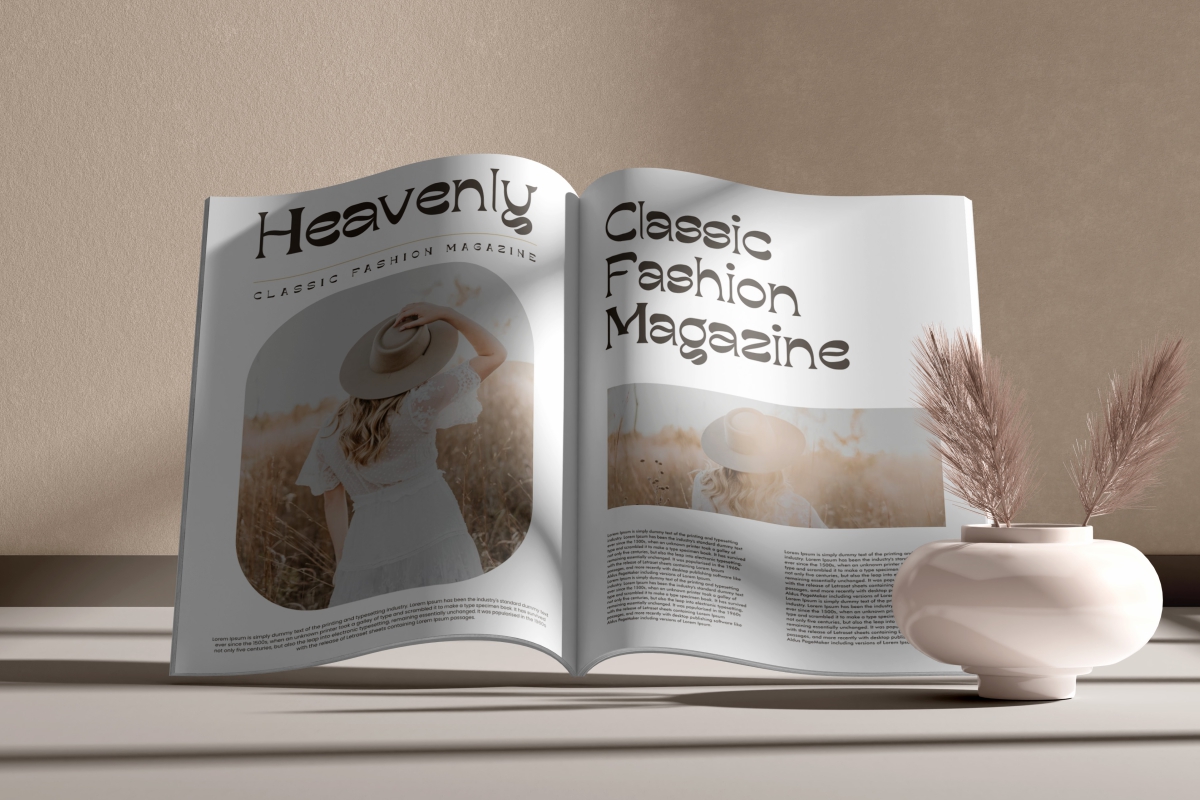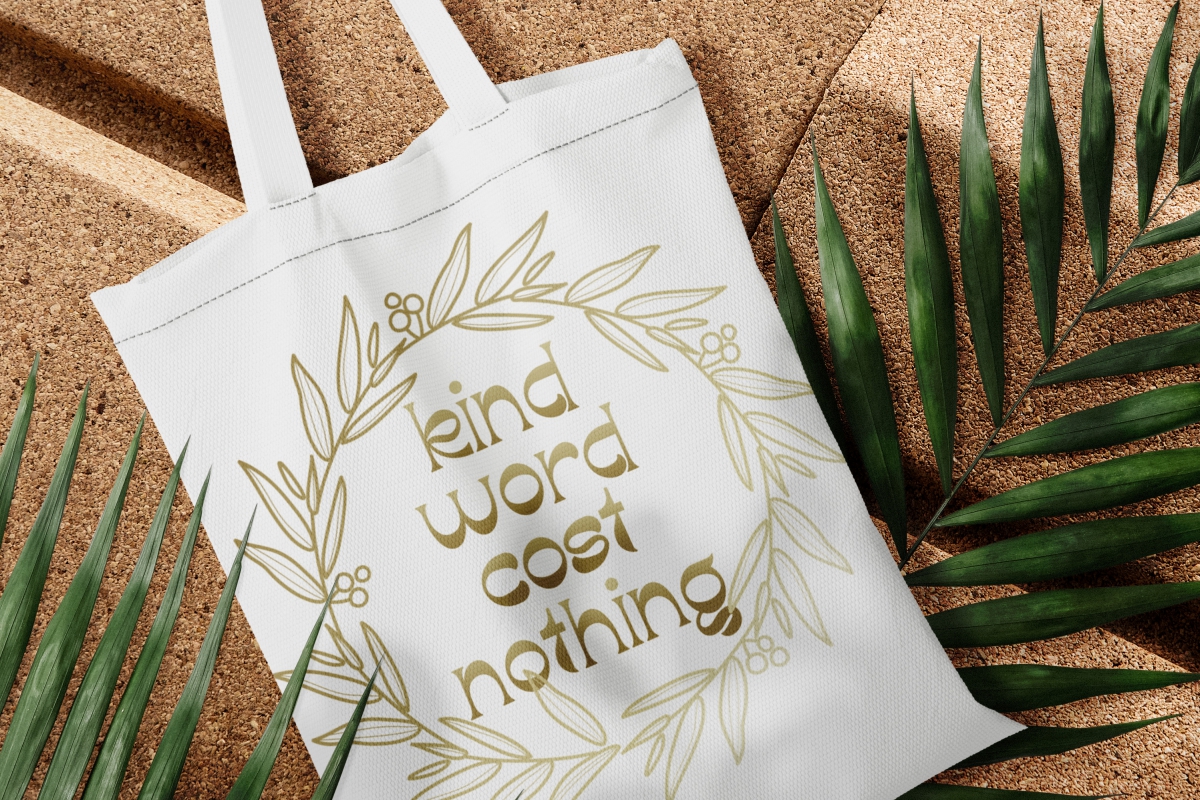
Paramatta Font
Paramatta Display Font
This is a unique display serif font, created by VinType Studio. This font is crafted with unique bold lines that will entice anyone to use it in their designs. Use this font to explore unlimited creativity in your designs!
Paramatta Font includes full set of Uppercase and Lowercase Basic Characters, Numerals and Punctuation. This font will be suitable for many industries such as café, cosmetic, craft, fashion, jewelry, publishing, restaurant, screen printing design, and more!